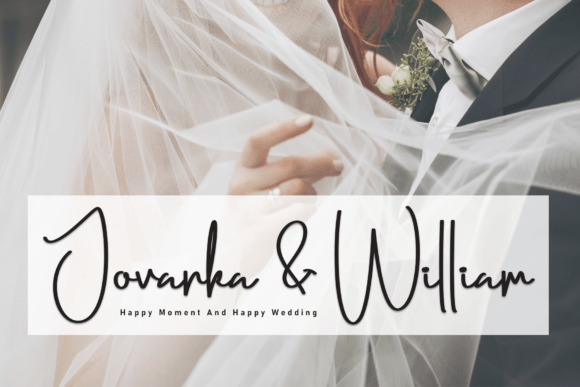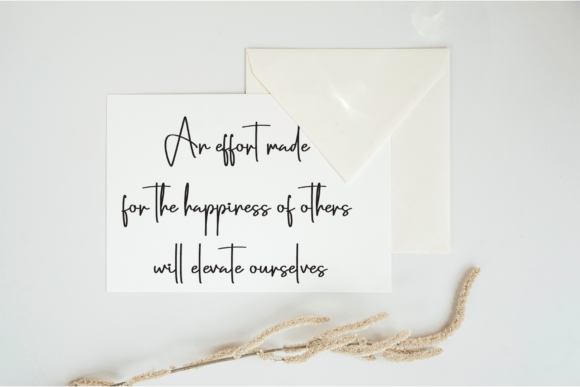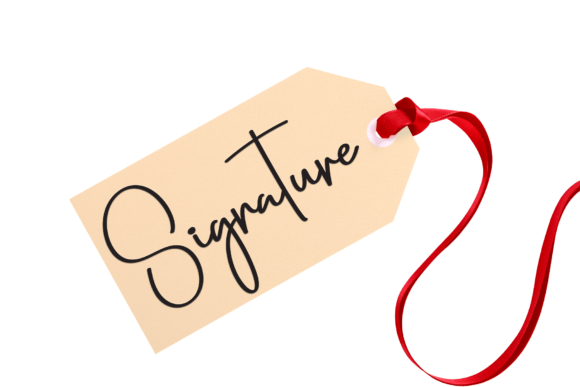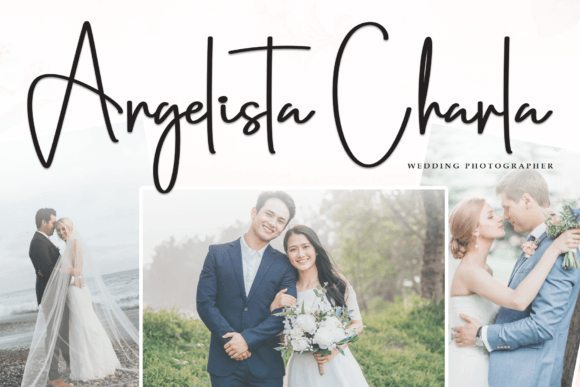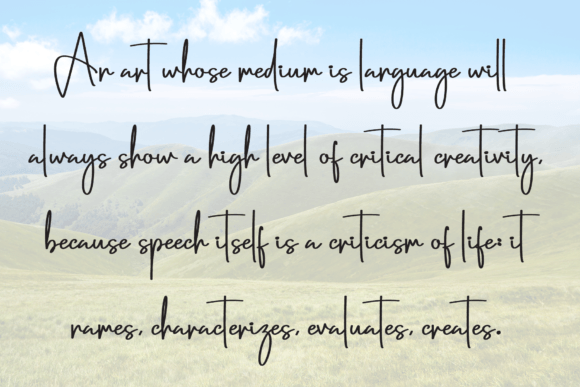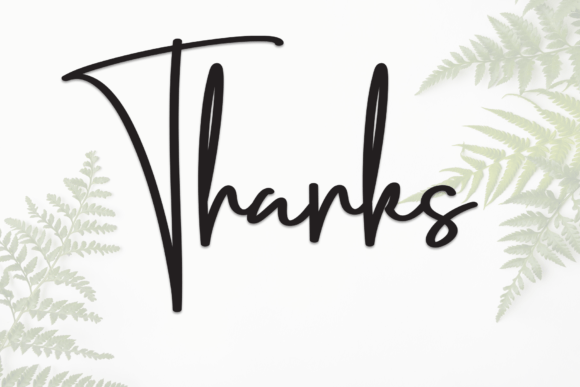
Get Ready to Bloom with the Botanical Font
Have you ever found yourself in a creative rut, staring at a blank page or screen, and suddenly, the perfect idea strikes? Maybe it’s the sound of birds chirping outside, the smell of fresh flowers, or the sight of a lush green meadow. Whatever it is, it sparks a sense of inspiration and sets your imagination ablaze.
For designers, finding the right font can be just as magical. That’s where the Botanical Font comes in – a sweet and friendly handwritten font that’s as natural as a spring breeze. Its unique style makes it incredibly versatile, fitting perfectly into a wide range of designs. From invitations to advertisements, the Botanical Font adds a touch of warmth and personality that’s sure to captivate your audience.
Key Features of Botanical Font
- Font Family: Botanical Font is a unique, hand-drawn font that features intricate details and organic shapes, making it perfect for botanical and nature-inspired designs.
- Font Size: Available in 6 different font sizes, ranging from 12pt to 72pt, allowing for flexibility in design and layout.
- Resolution: Optimized for high-resolution displays, making it perfect for use in digital designs, such as website headers, social media graphics, and print materials.
- Unique Characteristics: Features a mix of hand-drawn and digital elements, resulting in a distinctive, organic look that sets it apart from other fonts.
- Language Support: Supports a wide range of languages, including Latin, Cyrillic, and Greek scripts, making it a versatile choice for global designs.
Botanical Font Review
Botanical Font is a lovely, elegant script font that’s perfect for adding a touch of sophistication to any design project. Here are a few things that I think work really well: ✨
- The flowing, organic feel of the font makes it perfect for botanical or nature-themed projects.
- The subtle flair at the end of each letter adds a nice touch of whimsy.
- The font is highly customizable, with a wide range of weights and styles to choose from.
However, there are a few limitations that I think are worth mentioning: ⚠️
- The font may be a bit too ornate for some projects, which can make it difficult to read.
- The font doesn’t come with a lot of pre-built glyphs, which can make it difficult to create complex layouts.
Overall, I think Botanical Font is a great choice for designers who are looking for a unique, elegant script font. While it may have some limitations, the font’s flowing, organic feel and high level of customization make it a great addition to any design project.
The Botanical Font is ideal for:
- Botanical illustrations
- Herbal remedies
- Floral arrangements
- Wedding invitations
- Decorative elements
Tip: Use the Botanical Font to add a touch of elegance and sophistication to your designs.
What is the character set for Botanical Font?
Botanical Font includes a comprehensive character set that covers Latin, Greek, and Cyrillic alphabets, as well as punctuation marks and special characters. The font also includes a set of ligatures and swashes to enhance the beauty and elegance of the typeface. For a detailed list of supported characters, please refer to the font’s documentation or our website.